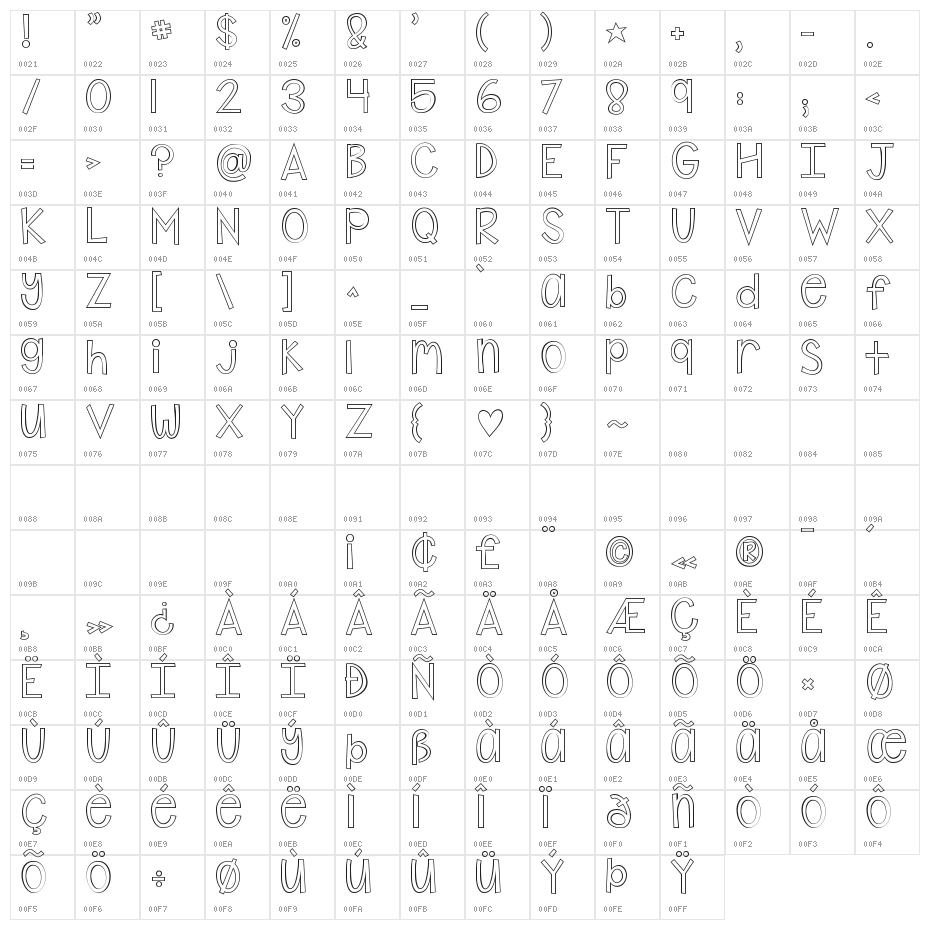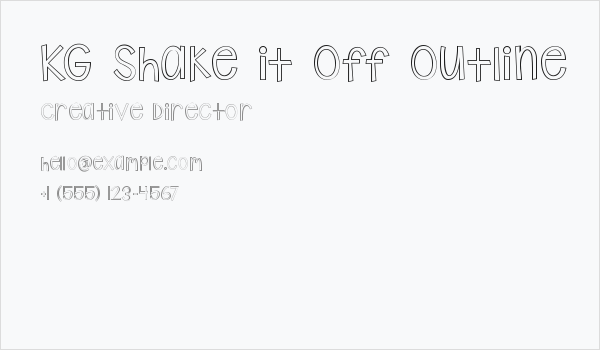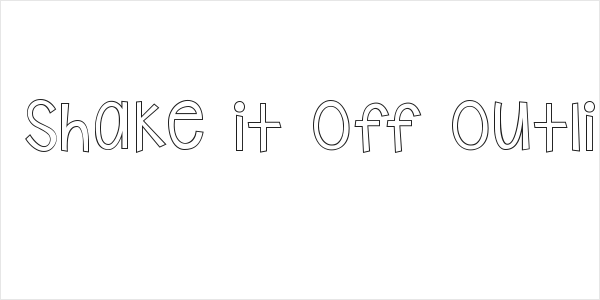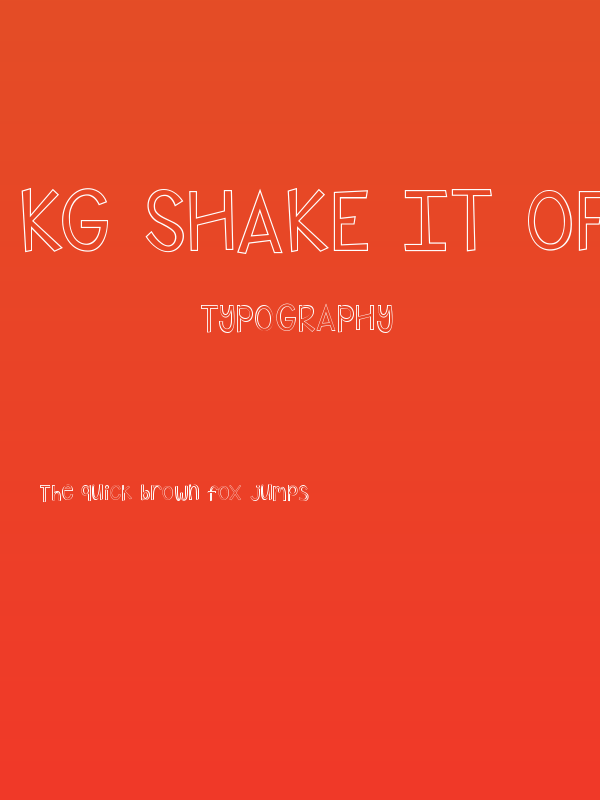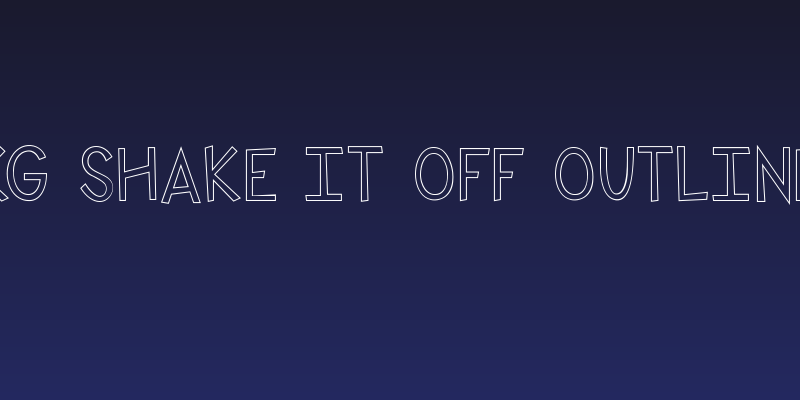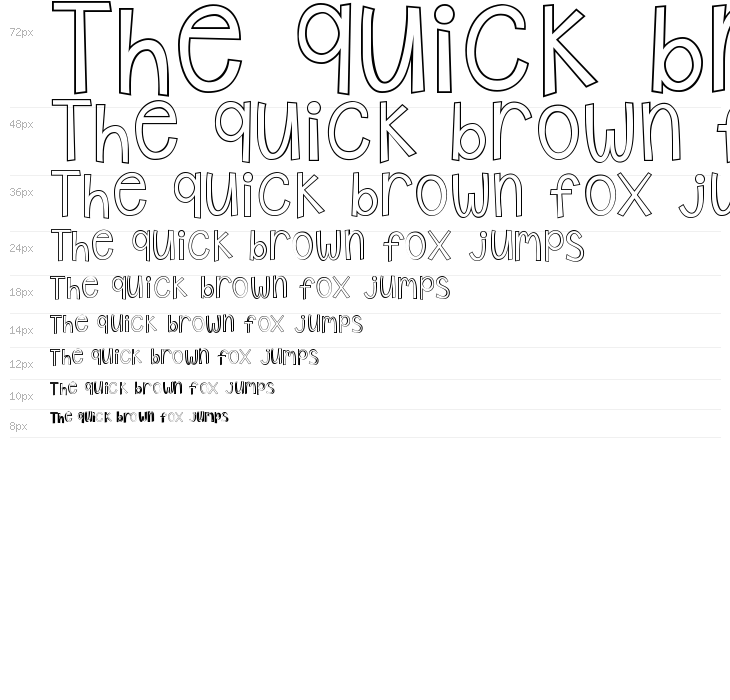
KG Shake it Off Outline Font
KG Shake it Off Outline Description
This playful and whimsical font features an outline style that gives it a unique and eye-catching appearance. The characters are bold and rounded, with a consistent stroke width that maintains clarity and readability. The uppercase letters are slightly taller than the lowercase, adding a touch of variety. The numbers and special characters are designed to match the playful theme, making them perfect for creative projects. The font's overall look is both fun and approachable, ideal for designs that require a lighthearted and informal touch.
| Proposed Projects | Ideal for children's books, party invitations, playful branding, and creative posters. |